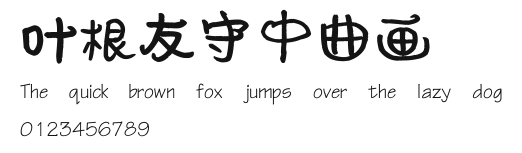
叶根友守中曲画 Preview
叶根友守中曲画.ttf is a modern, elegant sans-serif font designed for ultimate readability and visual harmony. Perfect for branding, headlines, web design, and print materials.